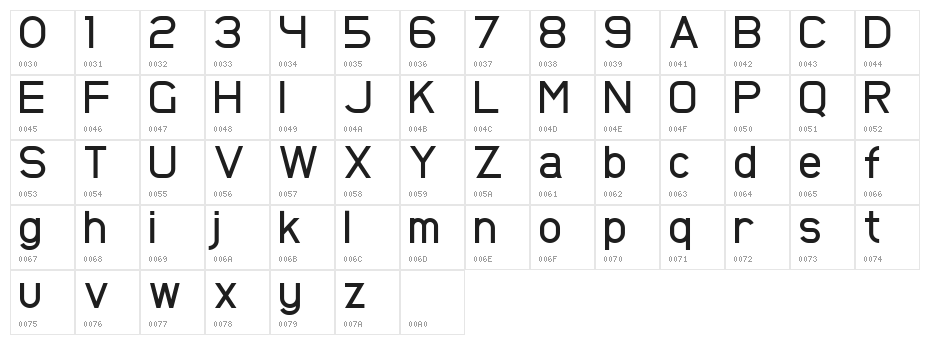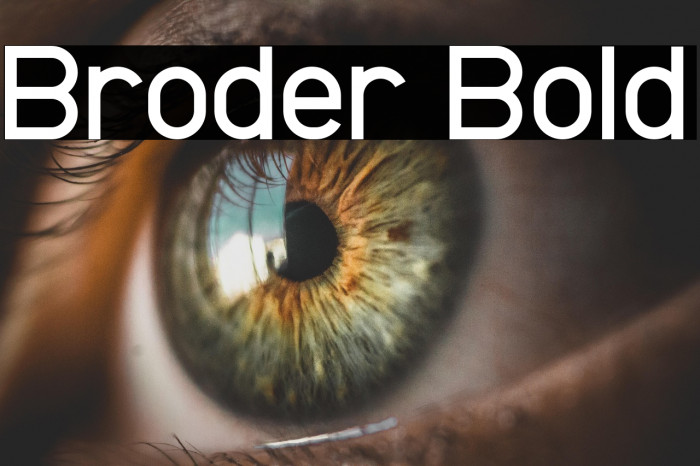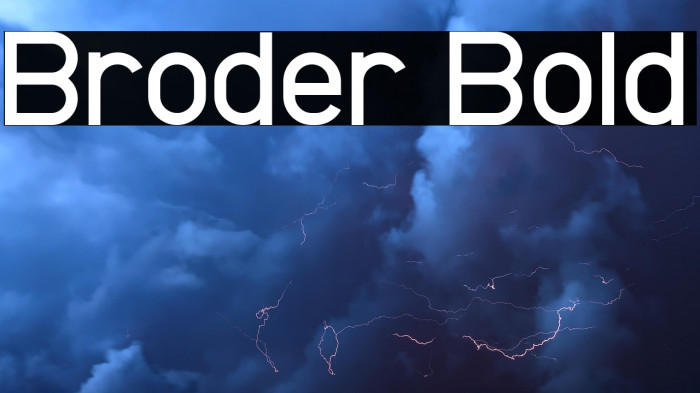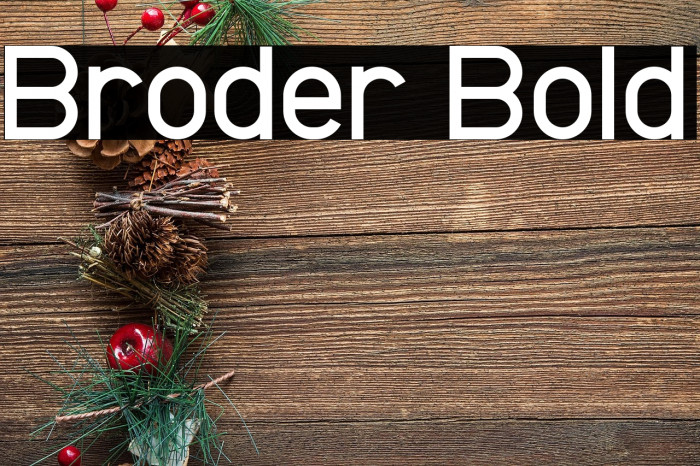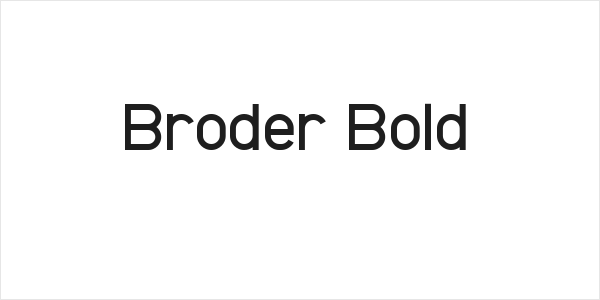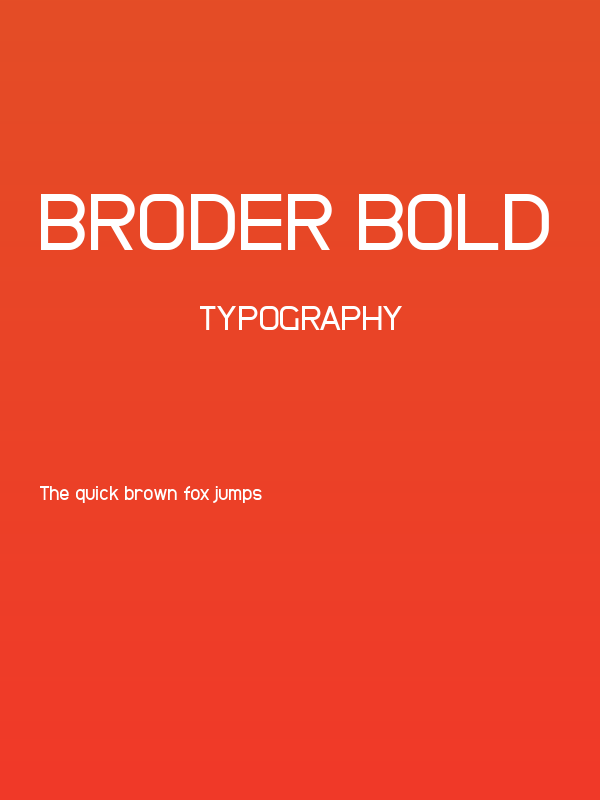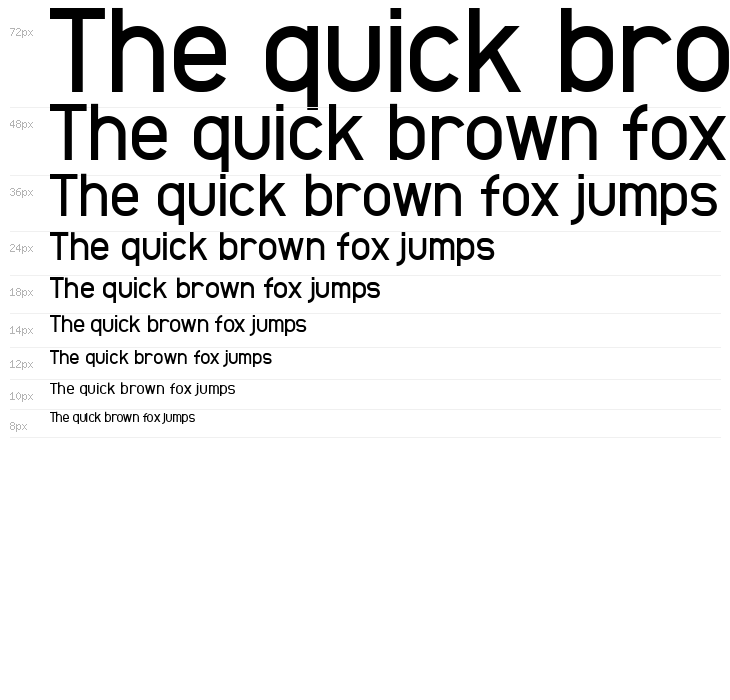
Broder Bold Font
Broder Bold Description
This typeface presents a bold and modern aesthetic with clean, geometric lines and a uniform stroke width. The uppercase letters are tall and commanding, while the lowercase letters maintain a consistent height, offering a balanced appearance. The numerals are clear and legible, making them suitable for various applications. The overall design is sleek and contemporary, with a focus on readability and simplicity. The characters are evenly spaced, providing a harmonious flow across text. This font is versatile, suitable for both digital and print media, and can effectively convey a sense of professionalism and modernity.
| Use Case | Headlines, Logos, Branding |
| Proposed Projects | Ideal for branding, headlines, digital media, and corporate design projects. |